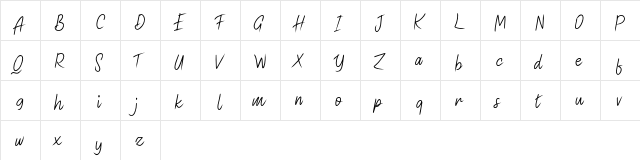
Acusted FREE Regular
Design Context for Acusted FREE Typeface
Acusted FREE is a composed and adaptable typeface that performs quietly and consistently across a wide range of design contexts.